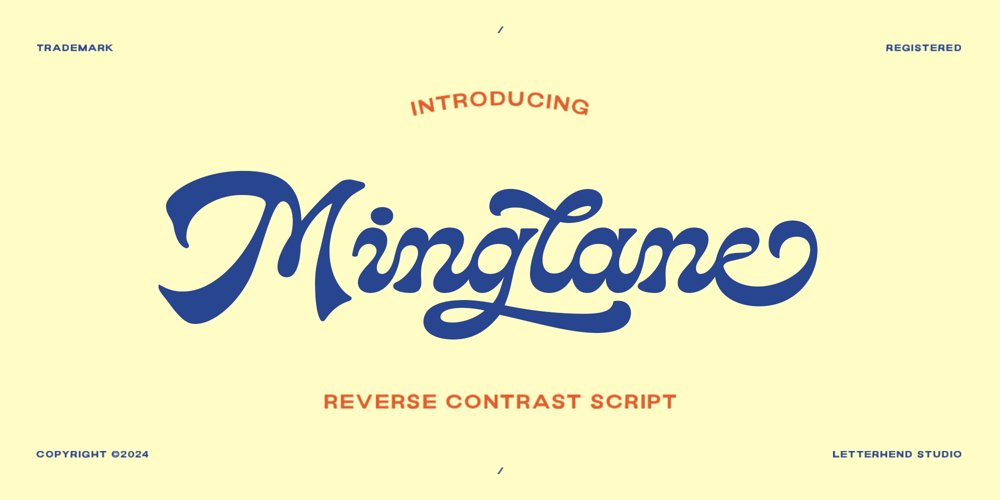
Minglane
Minglane font
Minglane Font Family was designed by Hendry Juanda and published by Letterhend. Minglane contains 1 styles and family package options. Introducing, Madrigale – a unique display script with reverse contrast. The unusual reverse contrast make this typeface one of a kind. This type of font perfectly made to be applied especially in logo, and the other various formal forms such as invitations, labels, logos, magazines, books, greeting / wedding cards, packaging, fashion, make up, stationery, novels, labels or any type of advertising purpose.Features : Uppercase & lowercase Numbers and punctuation Alternates & Ligatures Multilingual PUA encoded